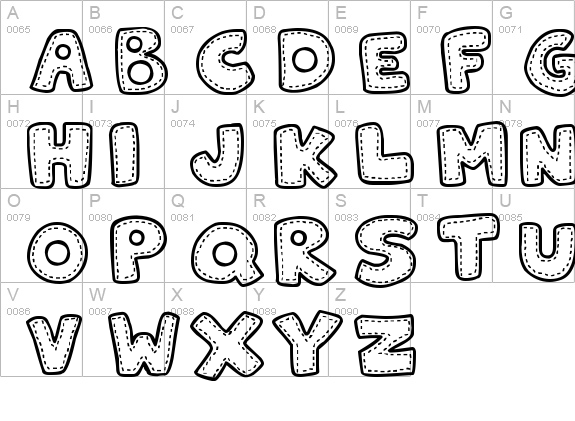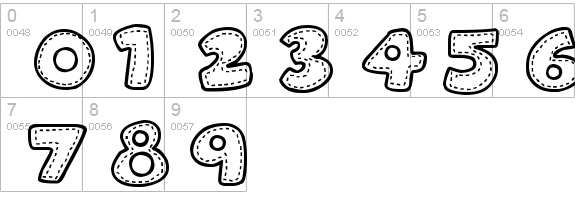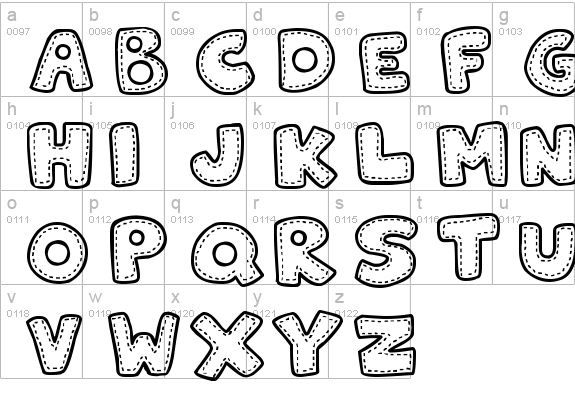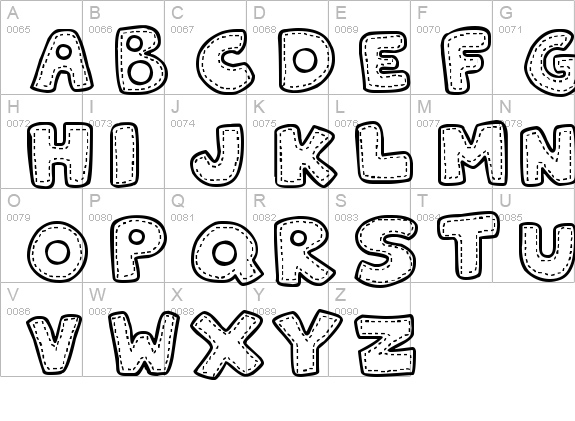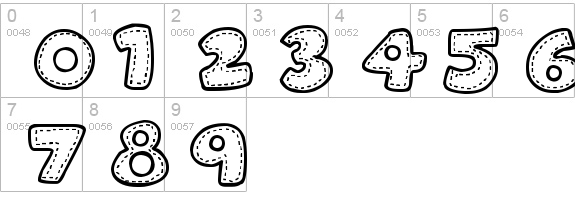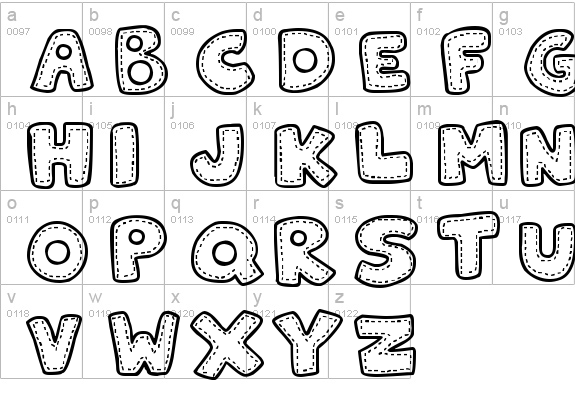
Patchwork Stitchlings Font Details
Patchwork Stitchlings font is a whimsical and charming typeface that brings a touch of handmade warmth to any project. With its quirky and playful design, this font is perfect for adding a unique and creative touch to invitations, greeting cards, posters, and more. The Patchwork Stitchlings font features irregular stitching details and a patchwork-inspired style that gives it a cozy and homespun feel.